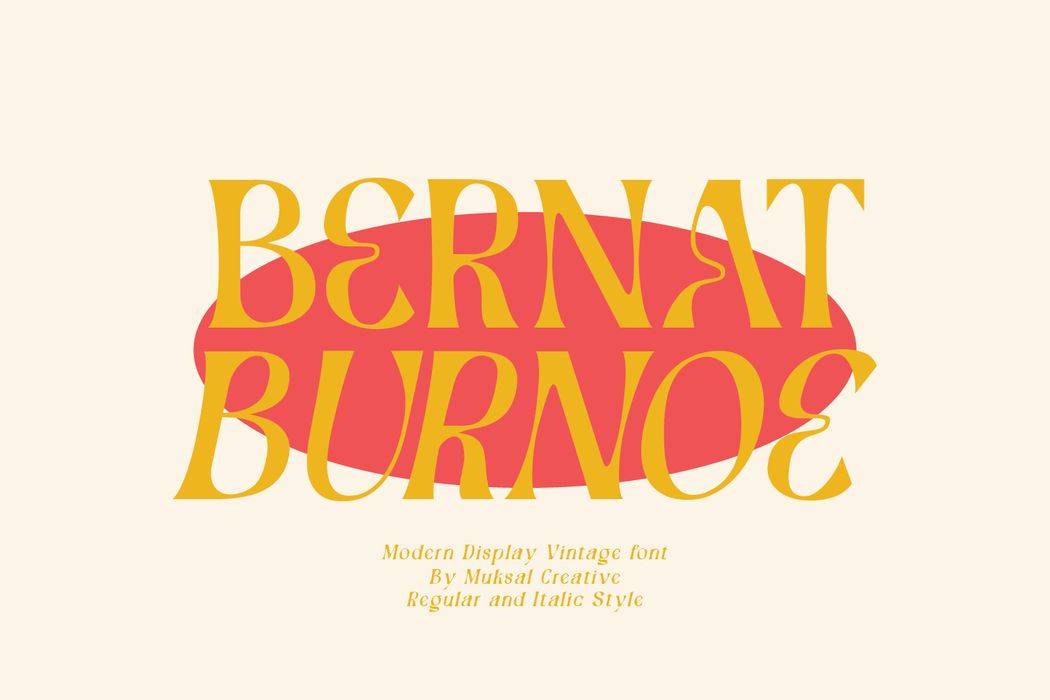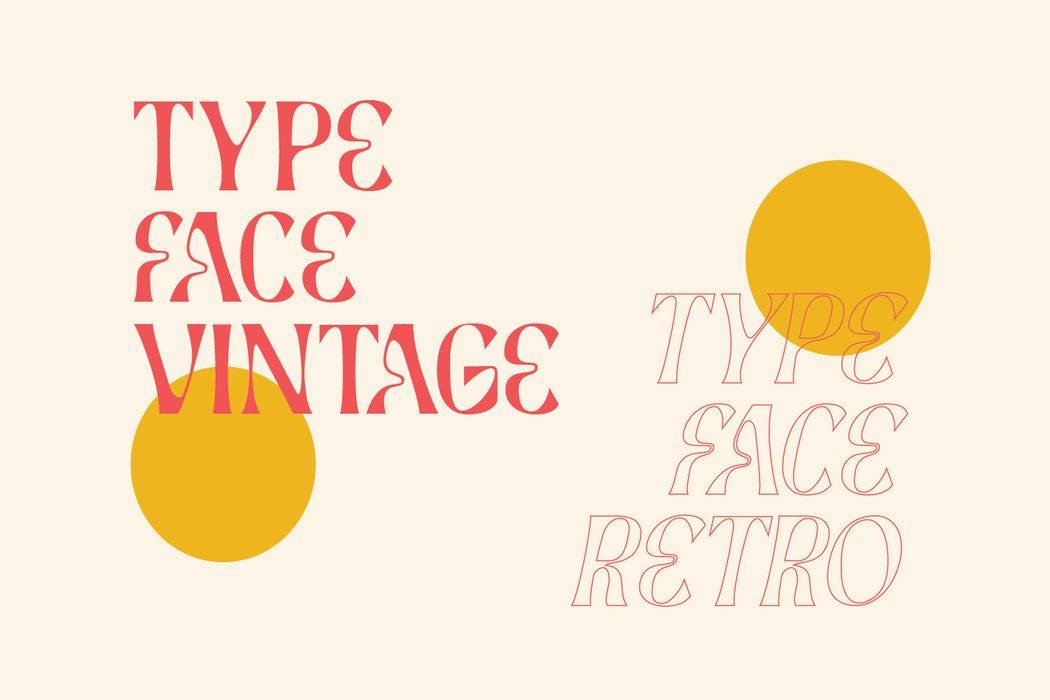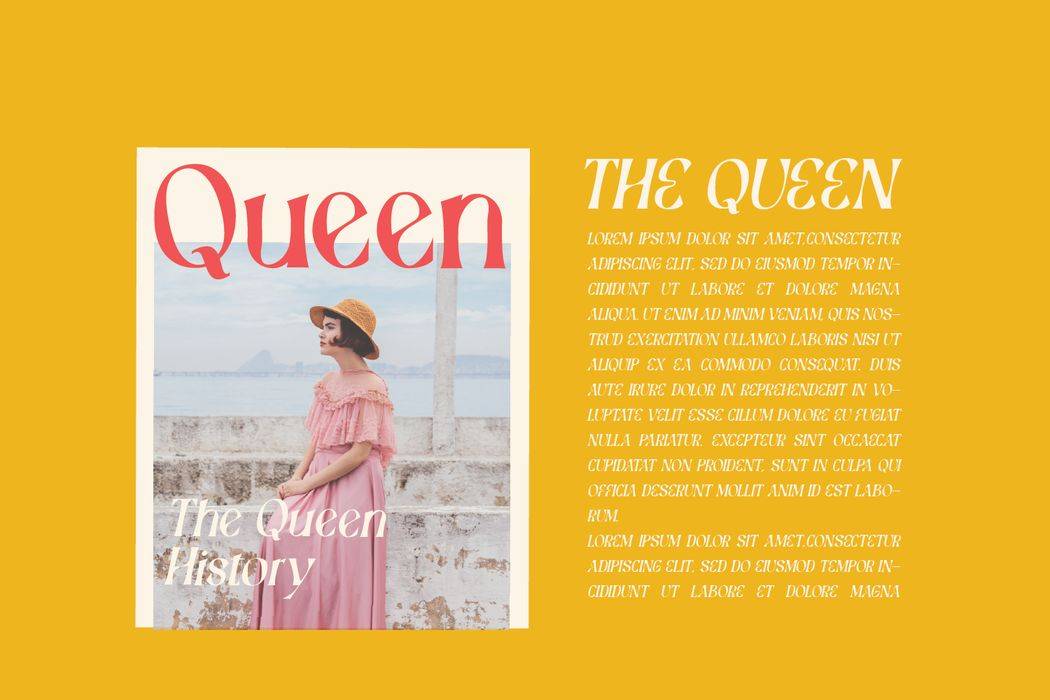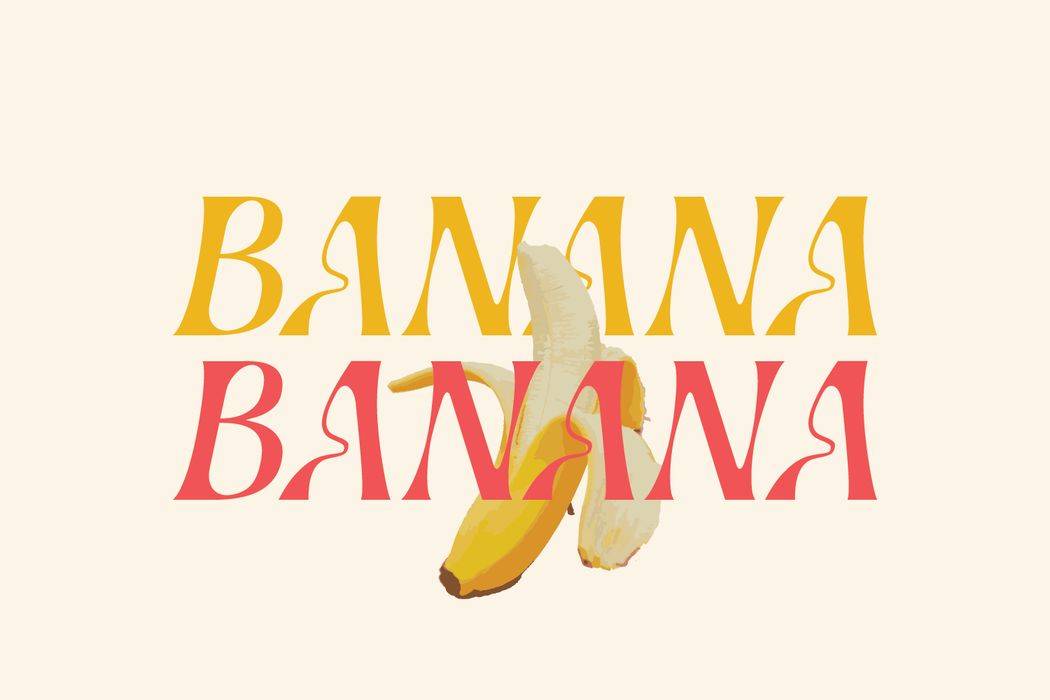
Bernat Burnoe is a distinctive serif font that blends classic elegance with a modern twist, showcasing sharp contrasts between thick and thin strokes and unique, slightly eccentric letterforms. With its tall, condensed structure and playful curves, it brings a sophisticated yet dynamic personality, making it ideal for striking headlines, branding, and editorial design where a bold, artistic impression is desired. This font stands out by offering a fresh take on traditional serif styles, perfect for creative projects seeking both refinement and character.
Bernat Burnoe Font
About Bernat Burnoe Font
| Font family | Bernat Burnoe Font |
| Designer | Muksal Creative |